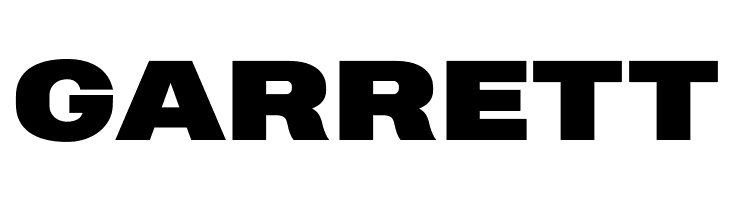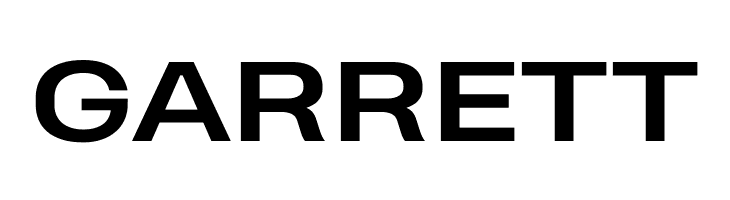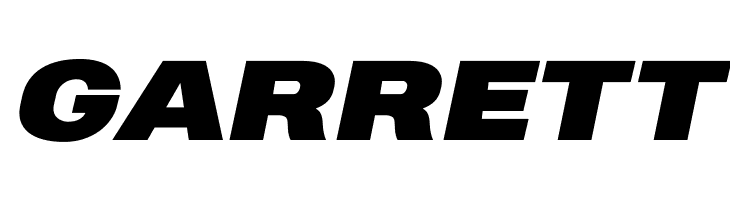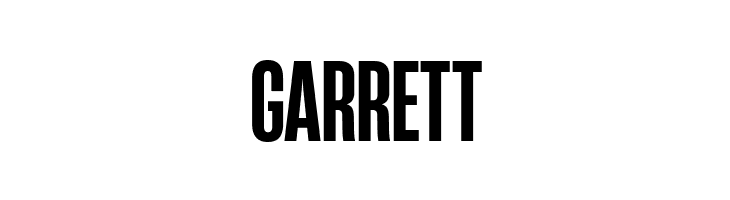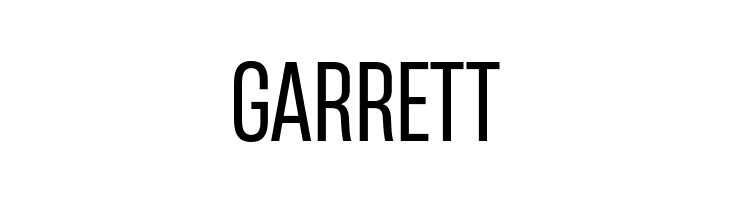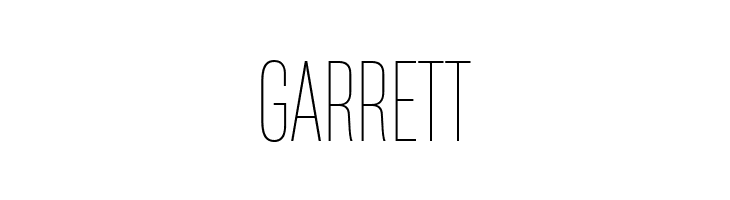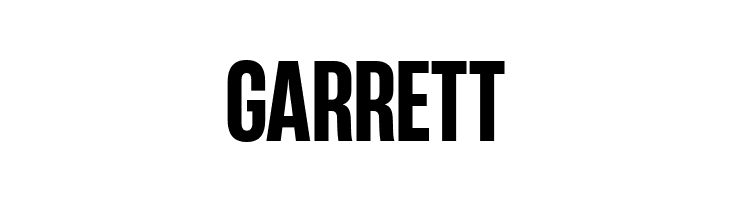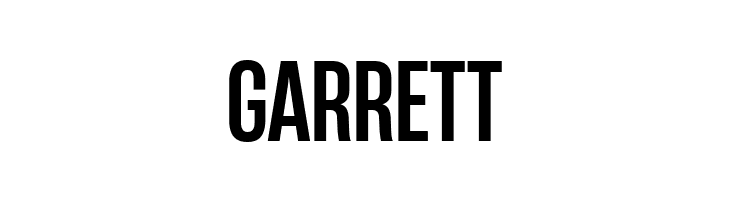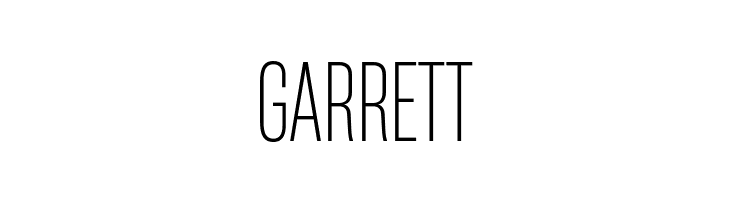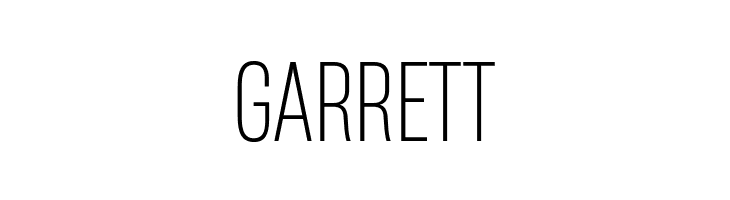
A sleek, modern font with thin, elongated strokes and a sophisticated appearance.
A modern, sleek, and condensed font with thin strokes and geometric shapes.
A modern, tall, and narrow sans-serif font with a clean and professional look.
A modern, narrow sans-serif font with clean lines and tight spacing.
A bold, modern sans-serif font with clean lines and slightly condensed characters.
A bold, modern font with strong vertical lines and consistent stroke width.
A bold, modern font with thick strokes and tight spacing, perfect for impactful headlines.
A bold, heavy font with high contrast and tight spacing, perfect for impactful headlines.
A modern, thin, and elegant font with a condensed style.
A modern, light sans-serif font with a sleek and minimalist design.
A modern, narrow sans-serif font with clean lines and balanced spacing.
A modern, narrow sans-serif font with a clean and geometric design.
A bold, modern sans-serif font with clean lines and uniform strokes.
A bold, modern font with thick, uniform strokes and geometric structure.
A bold, modern font with thick, uniform strokes for impactful displays.
A bold, condensed typeface with minimal stroke contrast and tight spacing.
A modern, thin font with elongated letterforms and uniform spacing.
A modern, light sans-serif font with tall, narrow characters.
A modern, clean sans-serif font with a slightly condensed style.
A modern sans-serif font with tall, narrow letterforms and high legibility.
A bold, modern sans-serif font with clean lines and high contrast.
A bold, sans-serif font with a strong, modern presence.
A bold, modern font with thick, uniform strokes and tight spacing.
A bold, heavy font ideal for impactful headlines and titles.
A thin, modern font with clean lines and geometric influence.
A clean, modern sans-serif font with uniform stroke width and geometric influence.
A modern, geometric sans-serif font with uniform strokes and clear readability.
A modern, sans-serif font with a clean and geometric design.
A bold, modern font with clean lines and excellent readability.
A bold, modern sans-serif font with strong, uniform strokes.
A bold, modern typeface perfect for impactful headlines.
A bold, heavy typeface ideal for impactful headlines.
A bold, wide font with a modern and impactful design.
A bold, wide, and italicized font with a modern and impactful style.
A bold, modern sans-serif font with a wide stance and high legibility.